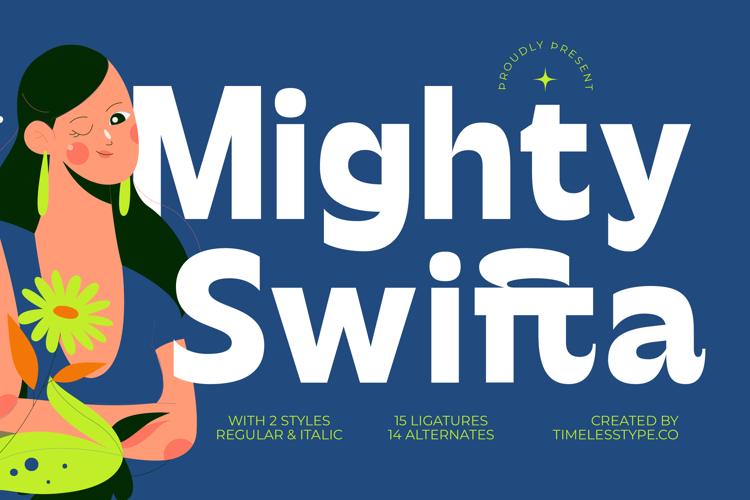
Mighty Swifta - Modern Sans Serif Font
The Mighty Swifta Typeface is a bold modern sans display font that embodies strength, clarity, and contemporary style. With 15 ligatures, 14 alternates, and 2 styles (regular and italic), this font offers designers versatility to create dynamic and impactful typographic compositions. Its geometric structure, sharp edges, and solid weight make it stand out, ensuring maximum readability while maintaining a strong visual presence. The design is perfect for projects that need a confident, modern, and approachable identity.
This typeface is especially effective for branding and identity design, where it can be used to craft logos, packaging, and advertising campaigns that emphasize modernity and boldness. Its strong sans-serif structure conveys reliability and power, making it suitable for technology brands, sports industries, startups, and lifestyle products.
In editorial applications, Mighty Swifta enhances magazine covers, feature headlines, posters, and brochures with its bold and contemporary appearance. Its alternates and ligatures give designers creative flexibility, enabling unique variations that make headlines visually engaging.